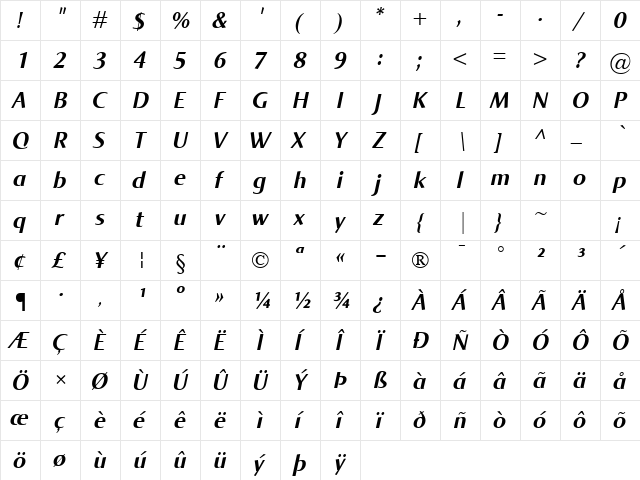
Norma BoldItalic
Design Context for Norma Typeface
Norma offers clean, dependable letterforms without strong stylistic allegiance, making it a practical choice for designers who need flexibility. The dynamic lean of this cut emphasises speed and emphasis in any layout. Its bold stroke weight gives it real presence on the page.